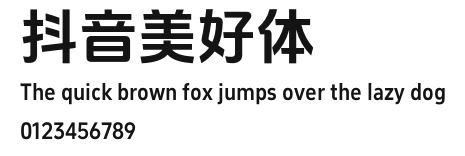
抖音美好体 Preview
• Font Name: 抖音美好体
• Font ID: Founder:Douyin Sans_Bold
• Full Font Name: Douyin Sans Bold
• PostScript Name: DOUYINSANSBOLD-GB
• Designer: 北京北大方正电子有限公司
• Manufacturer: 北京北大方正电子有限公司
About 抖音美好体.otf
抖音美好体.otf is a modern, elegant sans-serif font designed for ultimate readability and visual harmony. Perfect for branding, headlines, web design, and print materials.